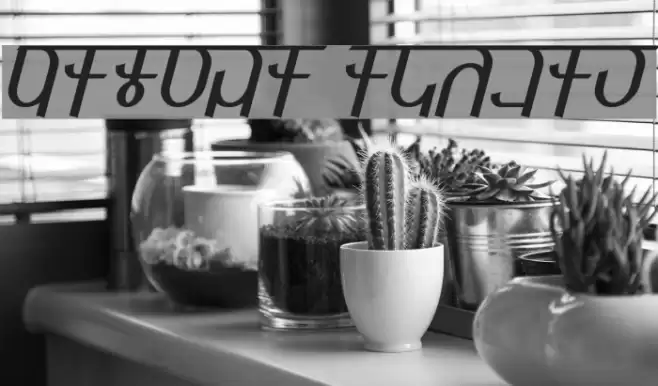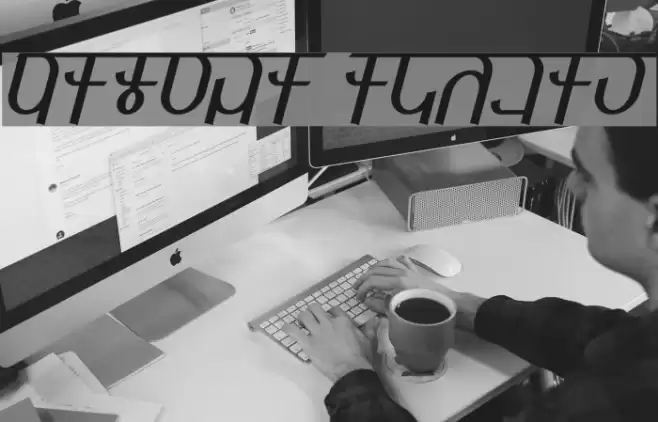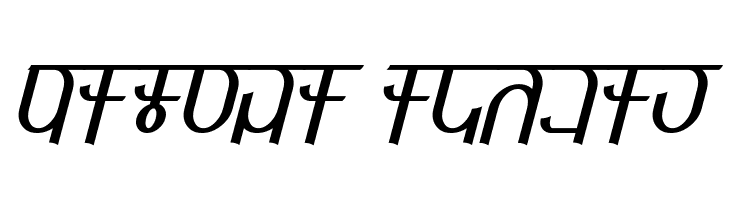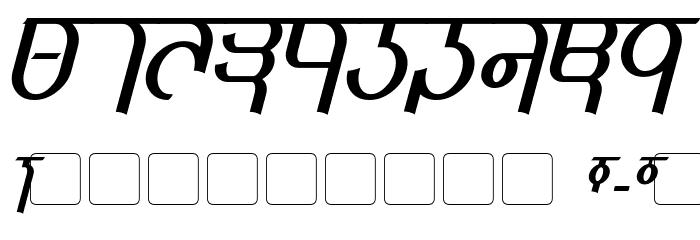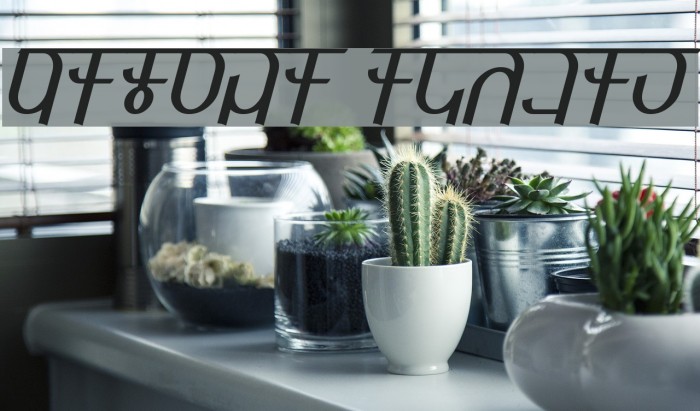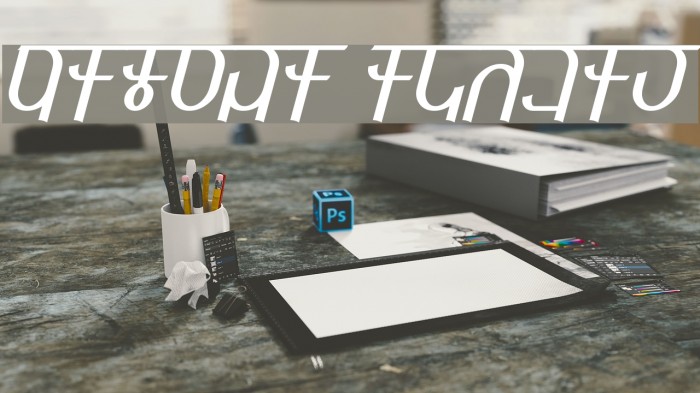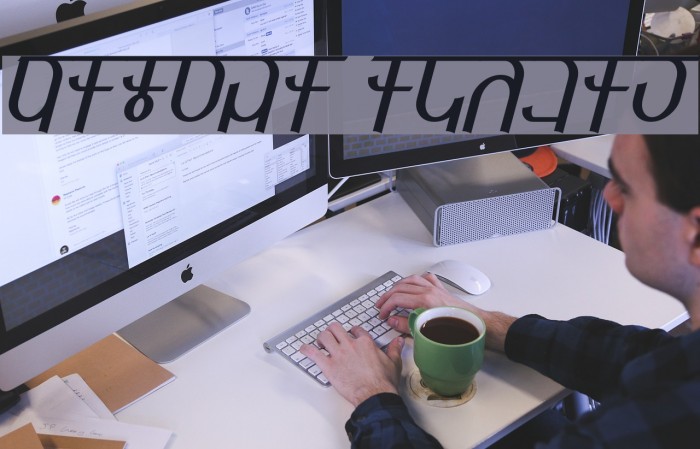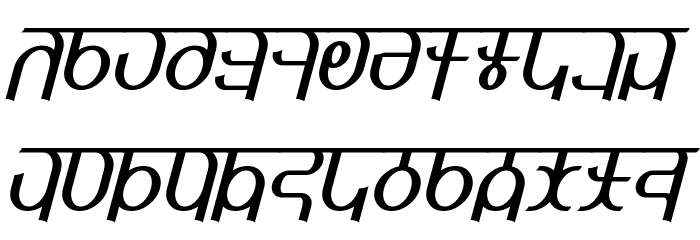
Qijomi Italic Font
Qijomi Italic Description
This font features a unique and artistic script style, characterized by its flowing, italicized letterforms. Each character is crafted with a distinct flair, combining sharp angles with smooth curves, creating an elegant and dynamic appearance. The font maintains a consistent slant throughout, enhancing its italic nature. The strokes vary in thickness, adding a subtle contrast that contributes to its readability and visual interest. This font is particularly suitable for creative and expressive design projects, where a touch of sophistication and individuality is desired.
An elegant, italic script font with flowing, dynamic letterforms from Uncategorized fonts.
- Proposed Projects: Ideal for invitations, greeting cards, artistic posters, and branding materials that require a personal and sophisticated touch.
- Use Case: Logos, Invitations, Artistic projects